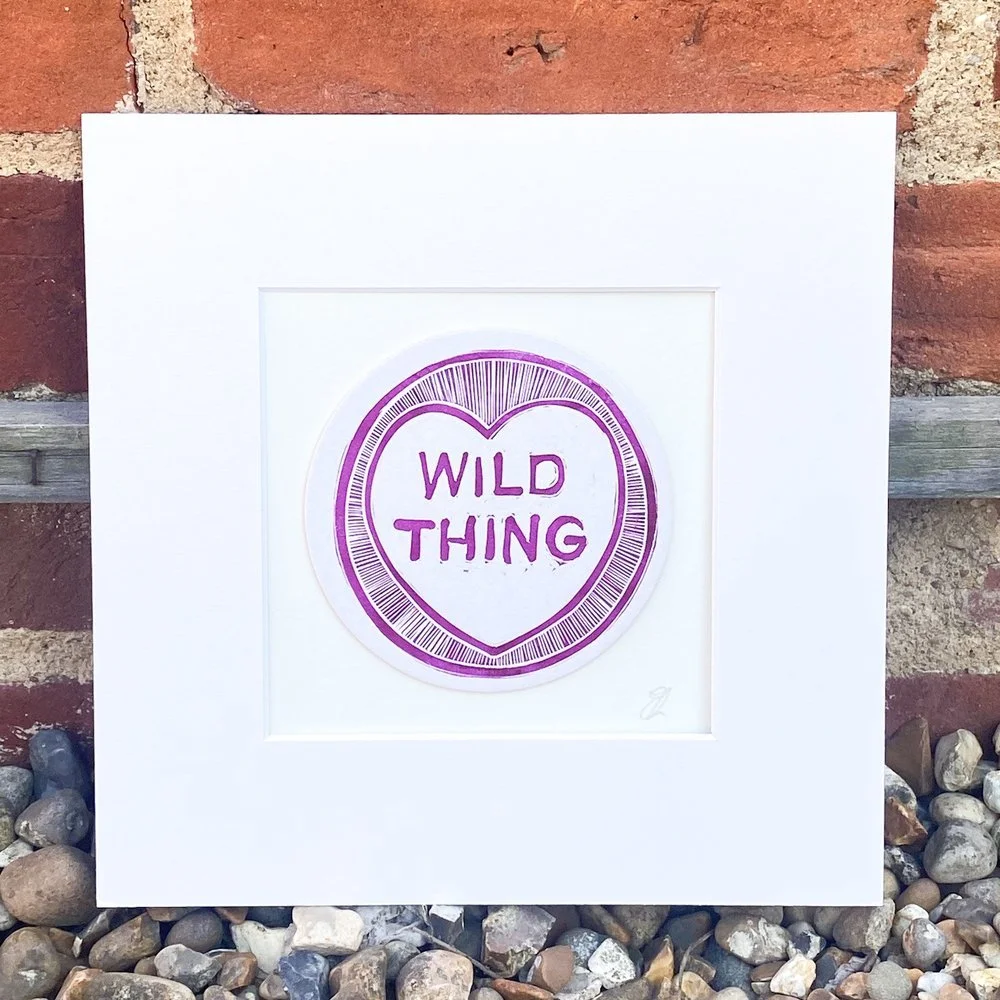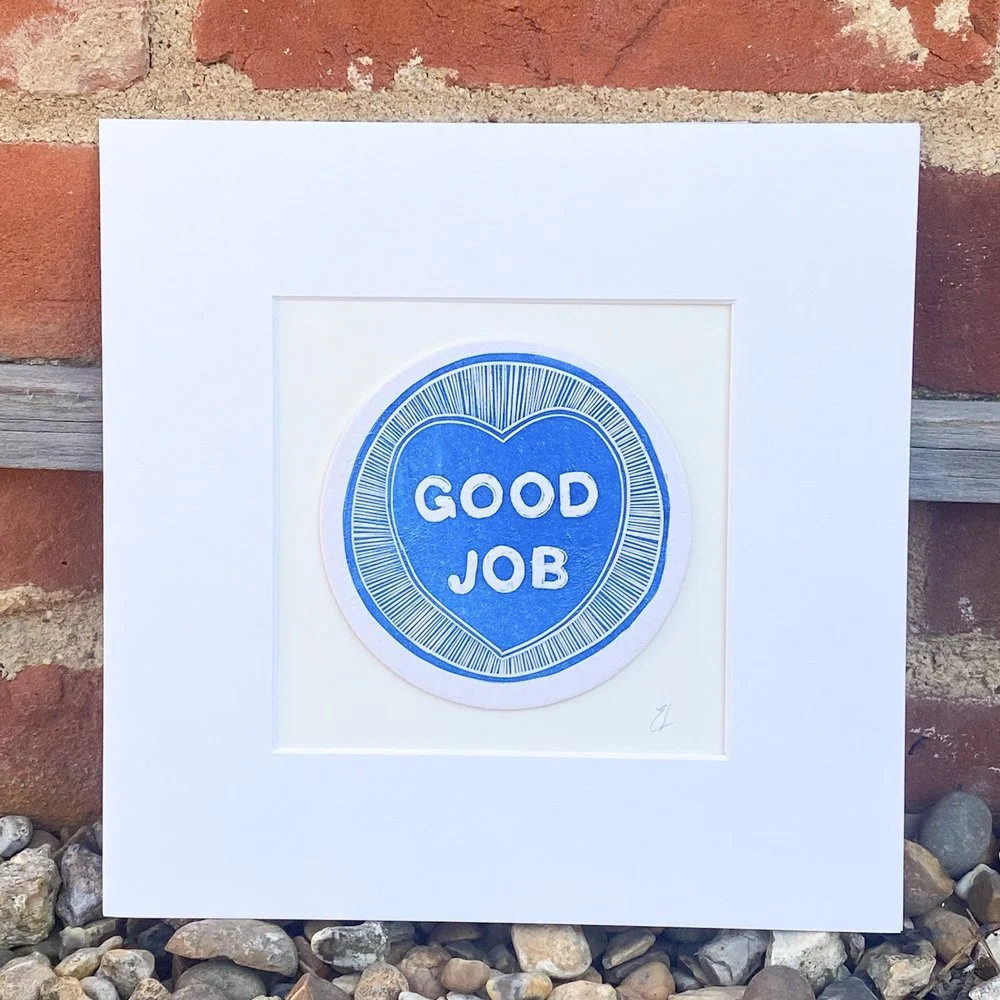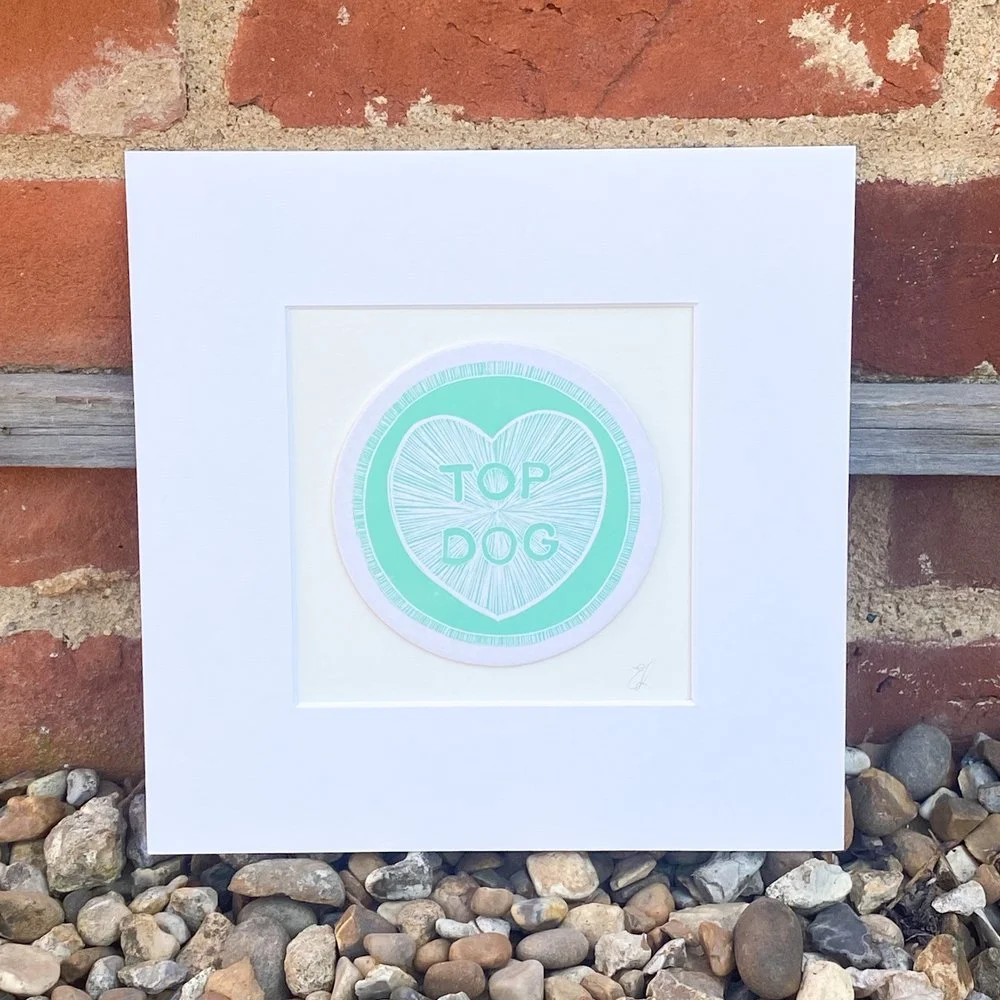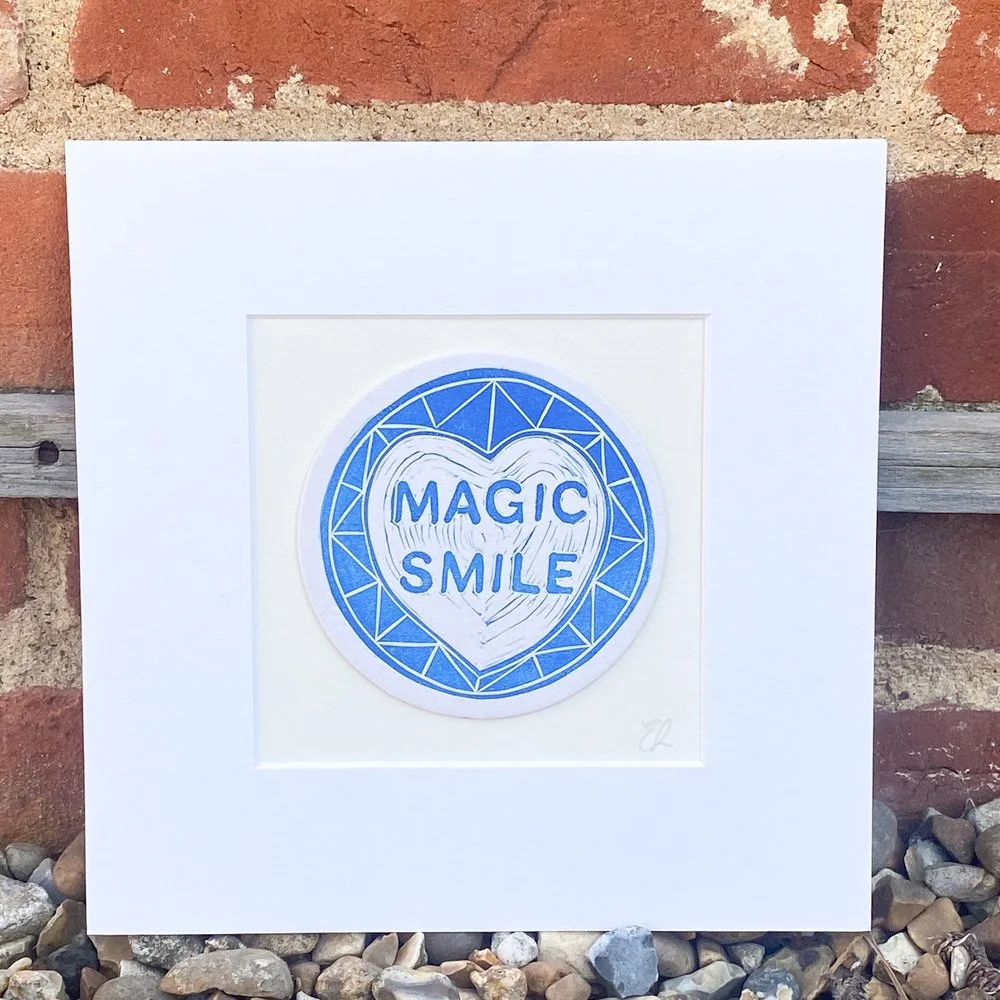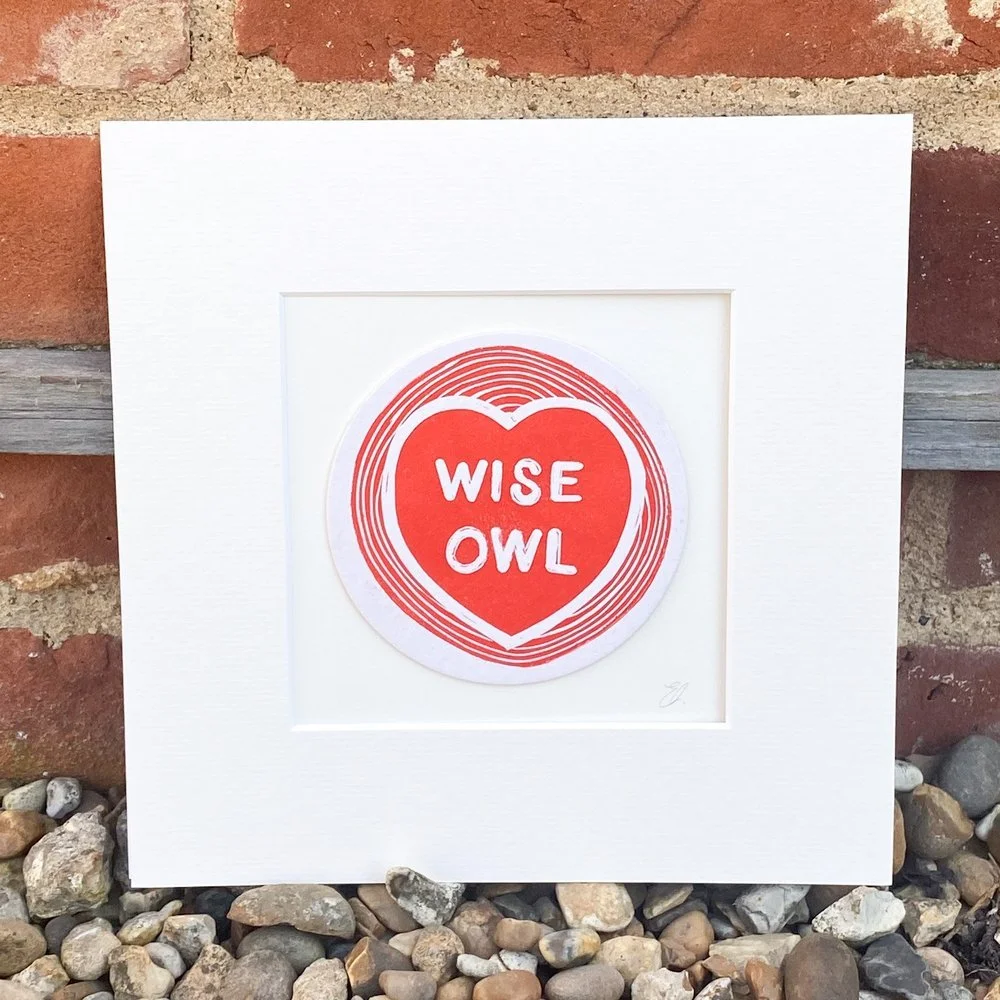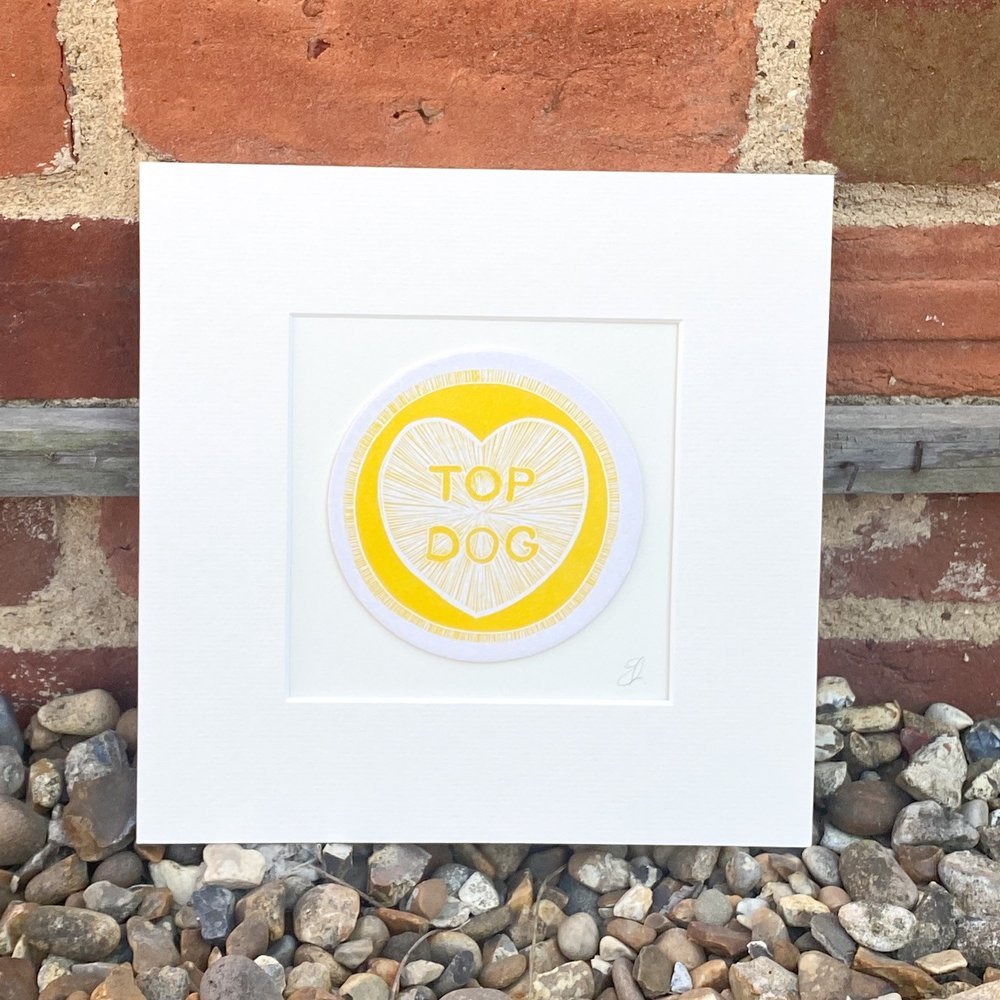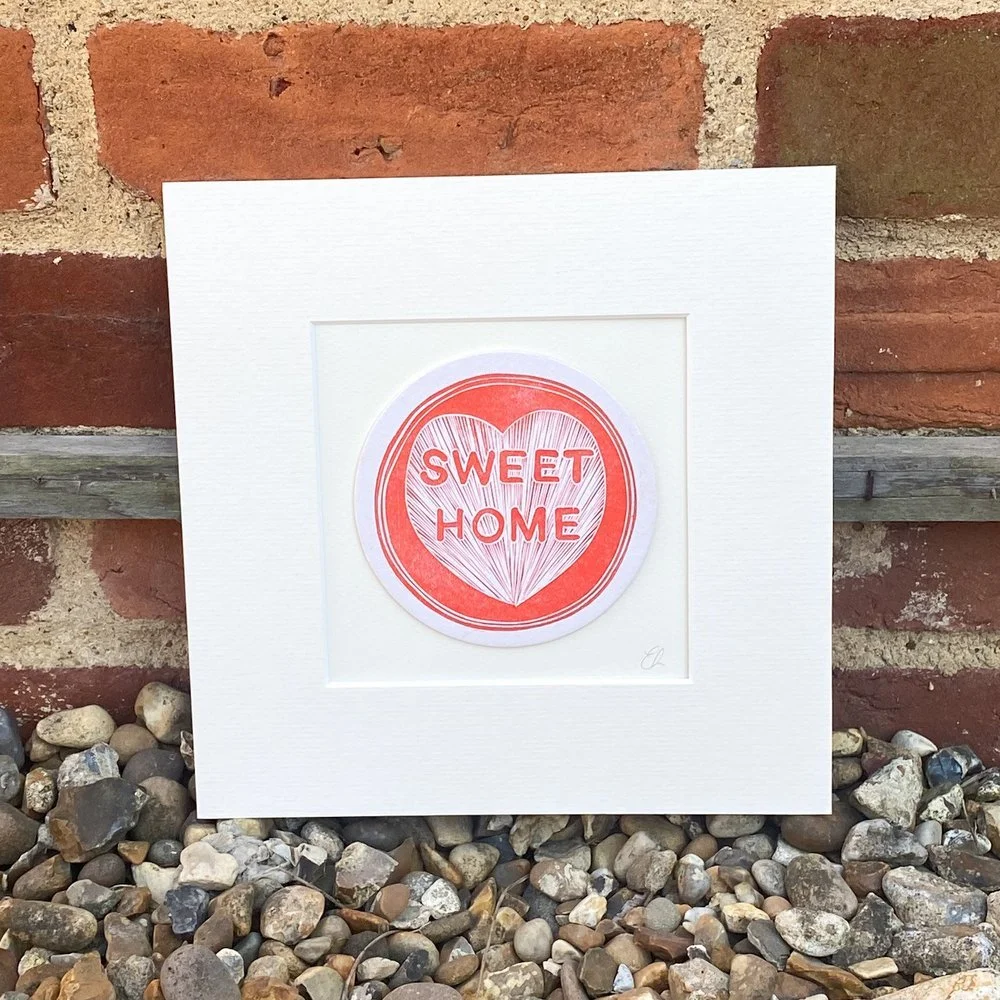
A linocut printed onto a card disc, reminiscent of those childhood sweets we all loved!
Elizabeth Fraser is an artist printmaker experimenting with the analogue processes of hand set letterpress type and linocut from her Cambridgeshire garden studio. Inspired by the invisible connections and structures that verbal and written language make in our lives she uses colour, pattern and space to create her playful work. Elizabeth also has an interest in using art as a means to explore and engage with science to create greater understanding and appreciation of their shared basis of creative enquiry.